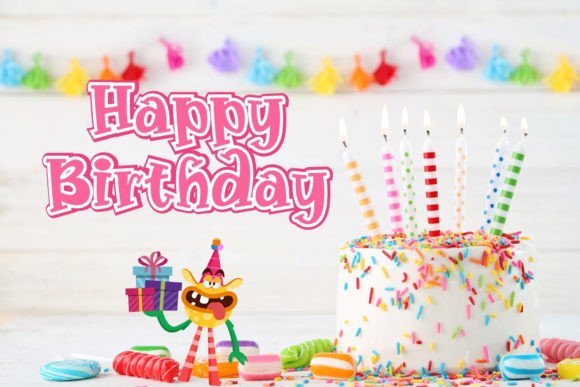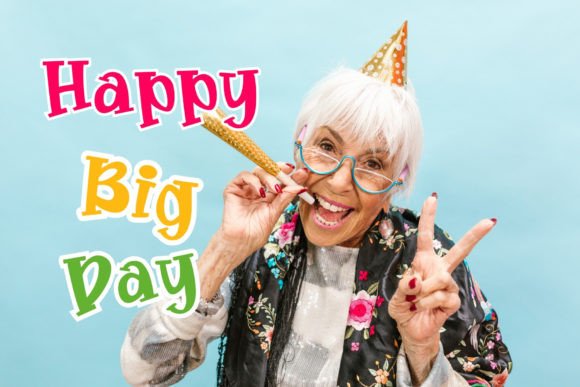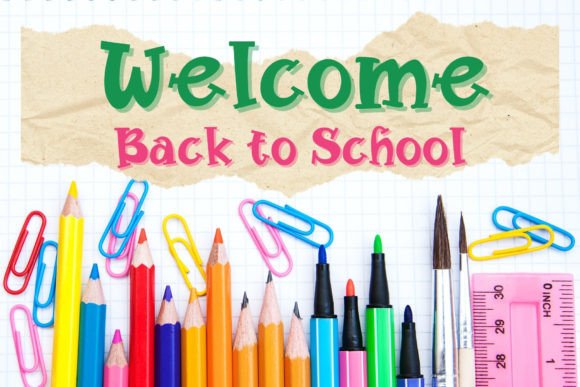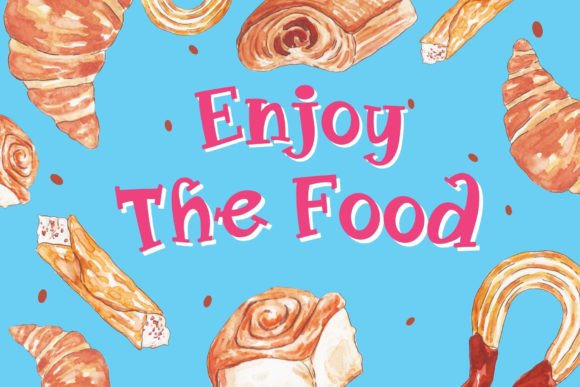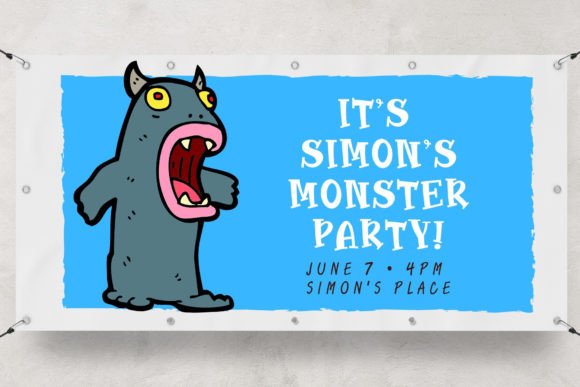
Introducing Birthday Font: The Sweet and Cute Celebration Companion
Are you looking for a font that embodies the joy and playfulness of birthdays? Look no further than Birthday Font, a delightful and charming typeface that’s perfect for a variety of design projects. In this article, we’ll dive into the world of Birthday Font, exploring its features, uses, and benefits for designers and crafters.
The Charm of Birthday Font
Birthday Font is a sweet and cute font that exudes joy and is adorable! Its relaxed charm makes it an ideal choice for designs that require a playful touch. Whether you’re creating children’s t-shirts, birthday cards, or party invitations, this font is sure to bring a smile to everyone’s face. Its full of relaxed charm, making it perfect for a variety of design environments.
- Playful and Whimsical: Birthday Font has a playful touch that makes it perfect for designs that require a fun and carefree vibe.
- Relaxed Charm: The font’s relaxed charm makes it suitable for a variety of design projects, from children’s apparel to party decorations.
- Adorable and Sweet: Birthday Font is a sweet and cute font that’s sure to delight both kids and adults alike.
- Versatile: This font is perfect for a range of design projects, including t-shirts, cards, invitations, and more.
Using Birthday Font for Design Projects
Birthday Font is an ideal choice for designers and crafters looking to add a playful touch to their projects. Here are some ideas for using this delightful font:
- Children’s T-Shirts: Create adorable and fun designs for kids’ t-shirts that are sure to make them look sparkling.
- Birthday Cards and Invitations: Use Birthday Font to create personalized and playful birthday cards and invitations that set the tone for a fun celebration.
- Party Decorations: Add a touch of whimsy to party decorations, such as banners, garlands, and signs, with this delightful font.
- DIY Crafts: Use Birthday Font to create custom DIY crafts, such as iron-on transfers, stickers, and stencils.
Benefits of Using Birthday Font
So, why choose Birthday Font for your design projects? Here are some benefits of using this delightful font:
- Easy to Read: Birthday Font is clear and easy to read, making it perfect for designs that require a playful yet legible font.
- Highly Versatile: This font can be used for a wide range of design projects, from digital designs to print materials.
- Unique and Playful: Birthday Font adds a touch of whimsy and playfulness to designs, making them stand out from the crowd.
- Perfect for Kids’ Designs: This font is ideal for designs aimed at kids, as it’s fun, playful, and engaging.
In conclusion, Birthday Font is a sweet and cute font that’s perfect for designers and crafters looking to add a playful touch to their projects. With its relaxed charm, playful touch, and adorable design, this font is ideal for a variety of design environments. Whether you’re creating children’s t-shirts, birthday cards, or party decorations, Birthday Font is sure to bring joy and whimsy to your designs. So, why not give it a try and see how this delightful font can elevate your designs?